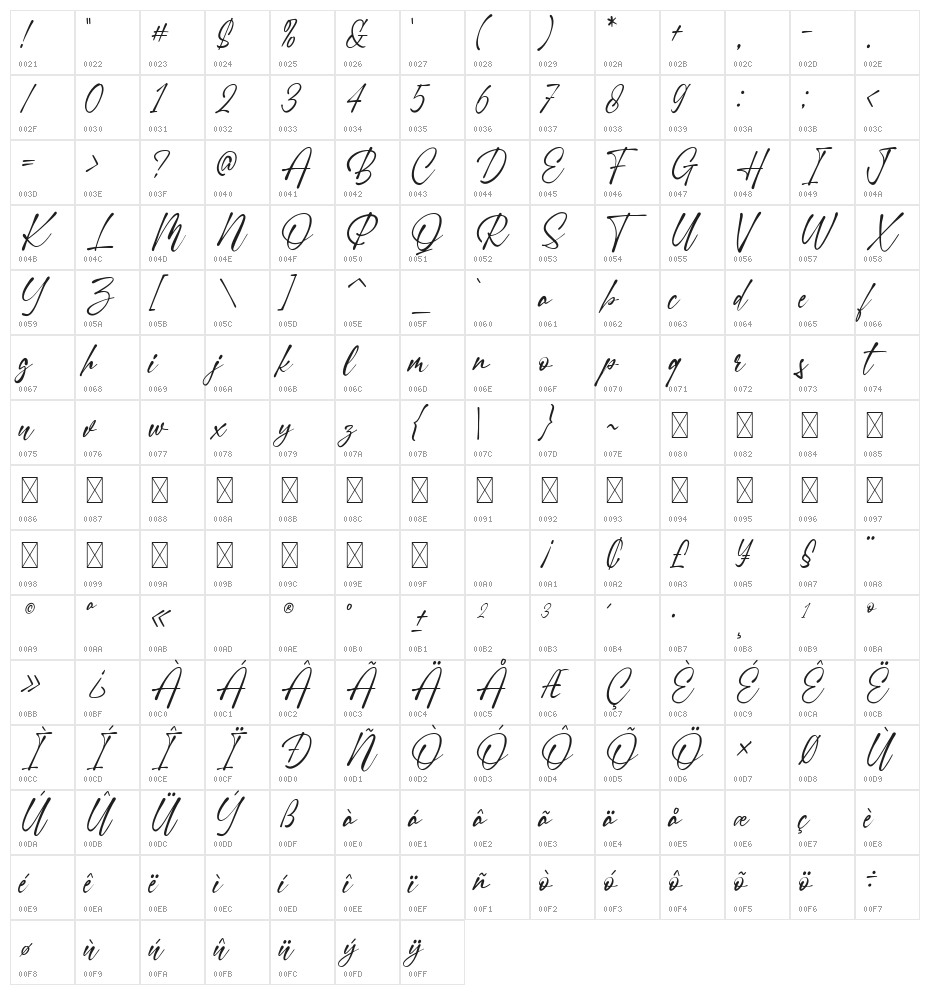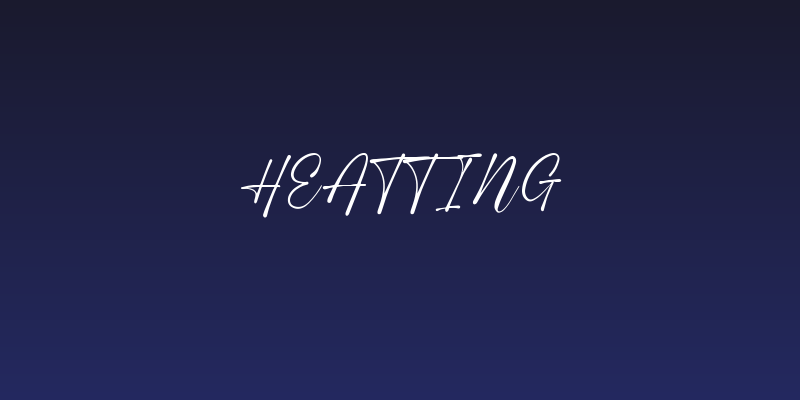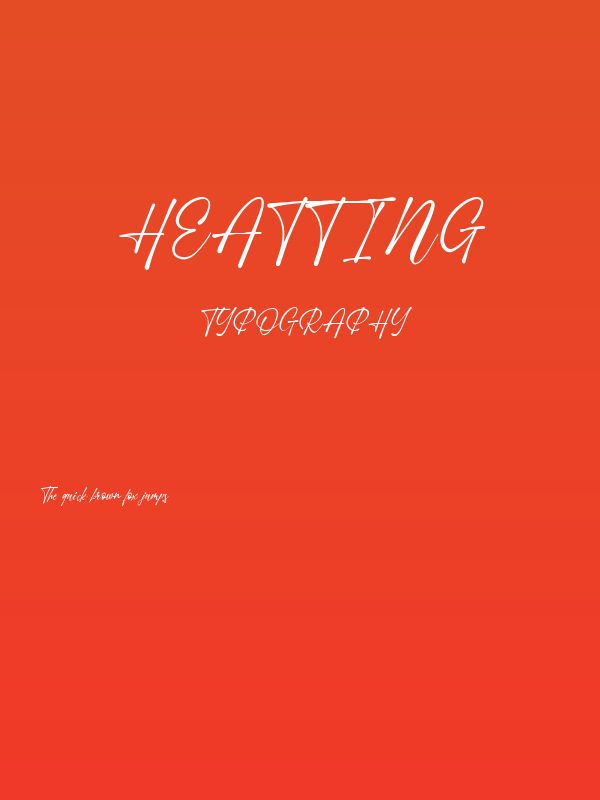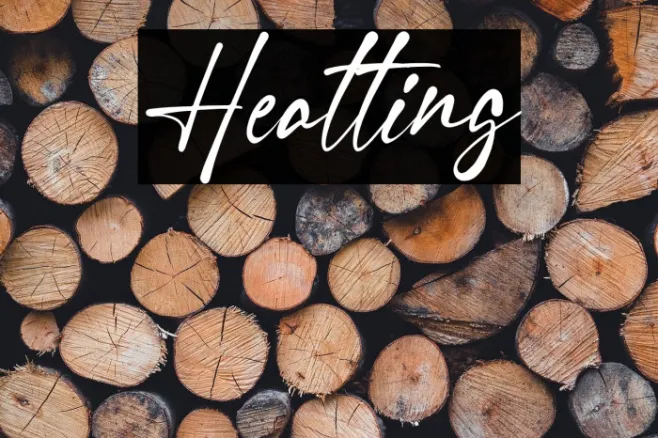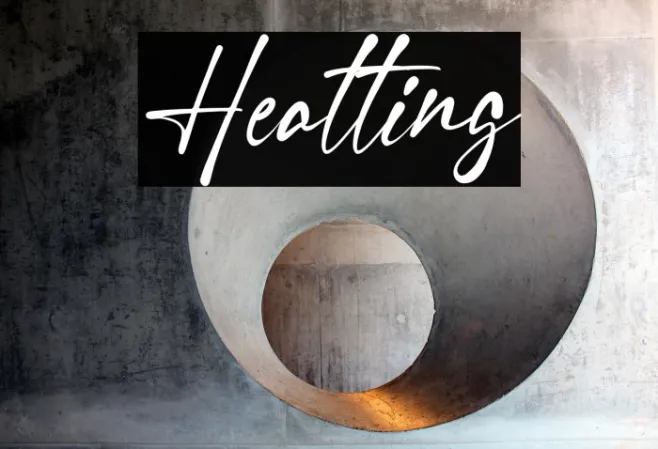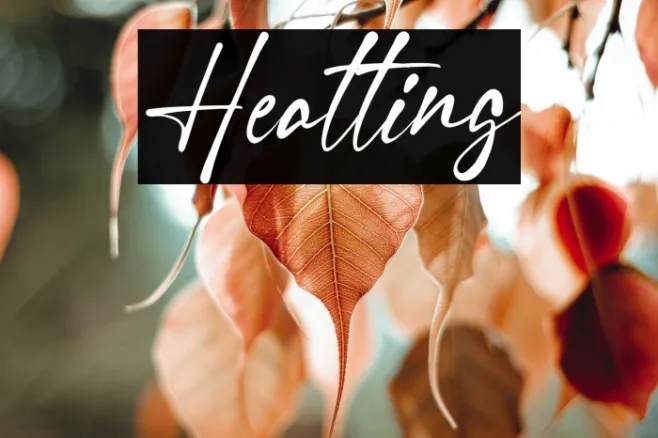
Heatting Font
Heatting Description
This font features a fluid and elegant script style, characterized by its smooth, flowing lines and cursive letterforms. The uppercase letters are slightly more structured, maintaining a consistent height, while the lowercase letters exhibit a more dynamic and varied baseline, adding to the font's lively appearance. The numerals and special characters are designed to complement the script style, with similar fluid strokes and a cohesive aesthetic. The overall impression is one of sophistication and grace, making it suitable for projects that require a touch of elegance and personal flair.
| Overall Style | Elegant, Decorative |
| Proposed Projects | Ideal for wedding invitations, greeting cards, branding, and elegant logo designs. |